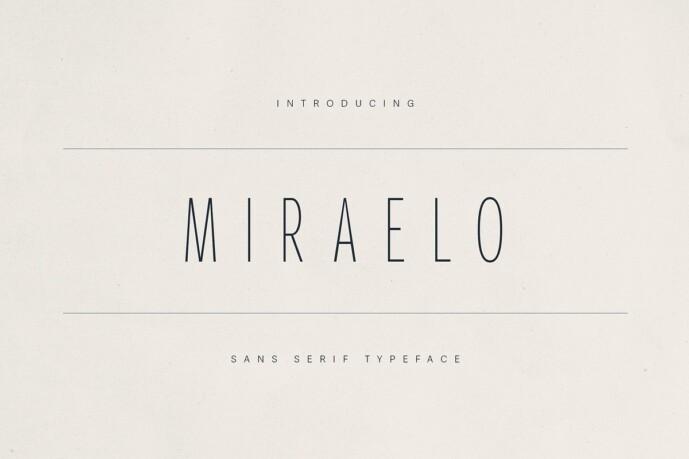
MIRALEO Font
Introducing MIRALEO Font a refined sans serif typeface crafted for brands, creatives, and designers who seek clarity with character. With a tall, minimalist posture and whisper-thin curves, MIRALEO evokes elegance, sophistication, and thoughtful restraint—perfect for modern branding, editorial layouts, luxury packaging, and digital content that demands quiet confidence.
MIRALEO draws inspiration from high-end fashion editorial, heritage branding, and understated art direction. Whether you’re crafting a luxe cosmetics label, building a clean UI, or creating poetic magazine layouts, MIRALEO adapts beautifully—especially in uppercase or spacious layouts.